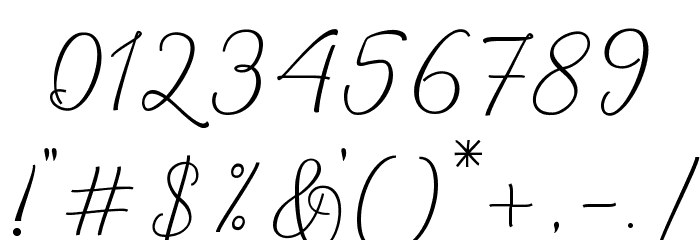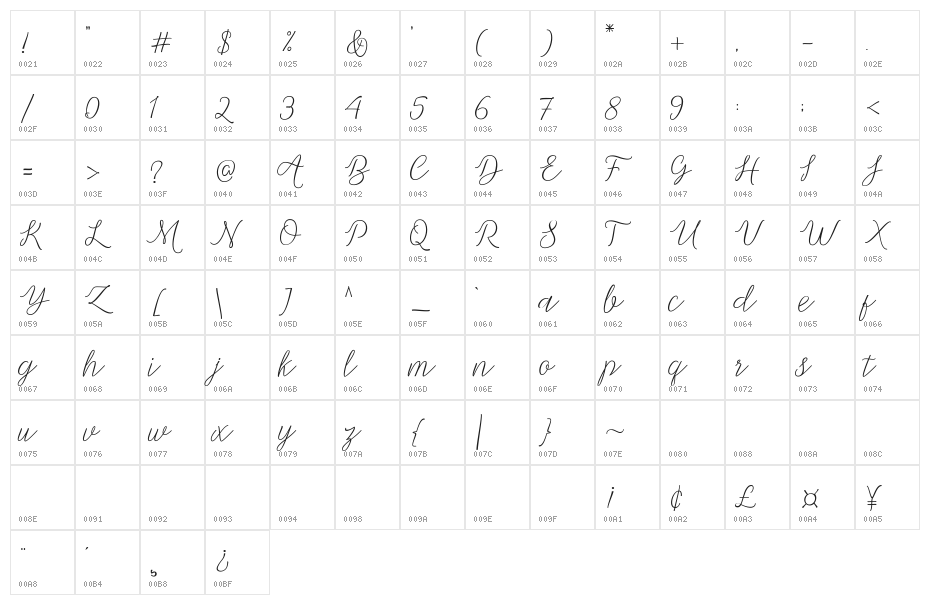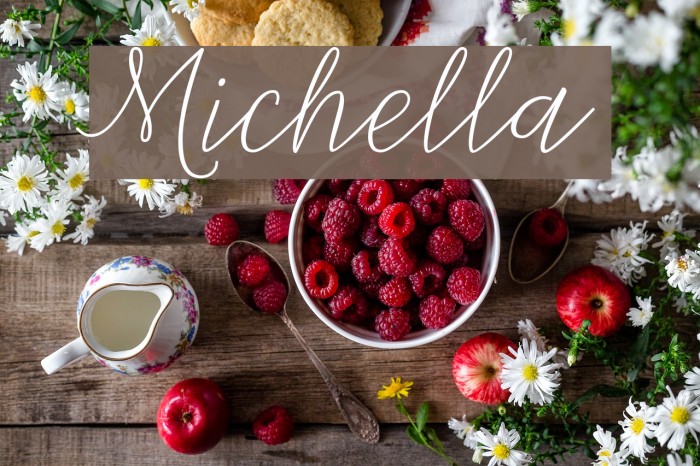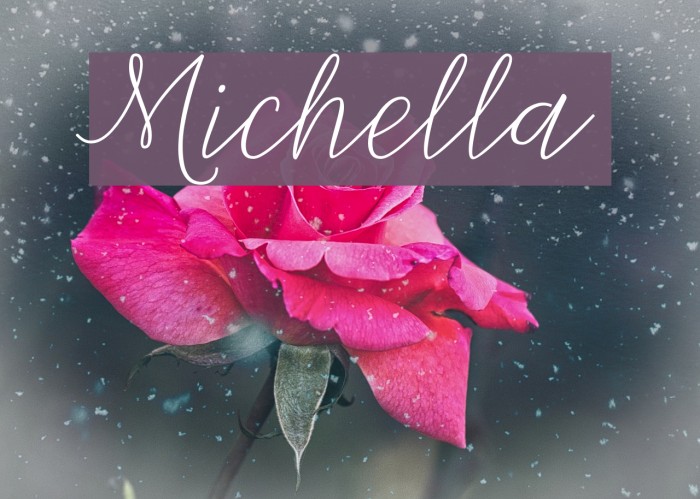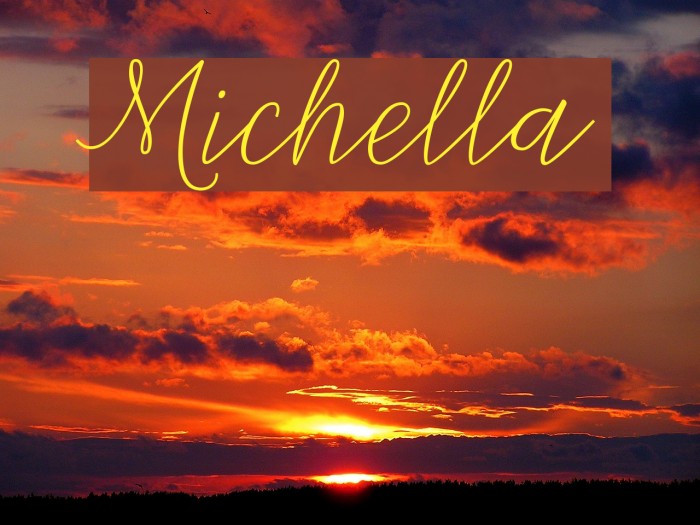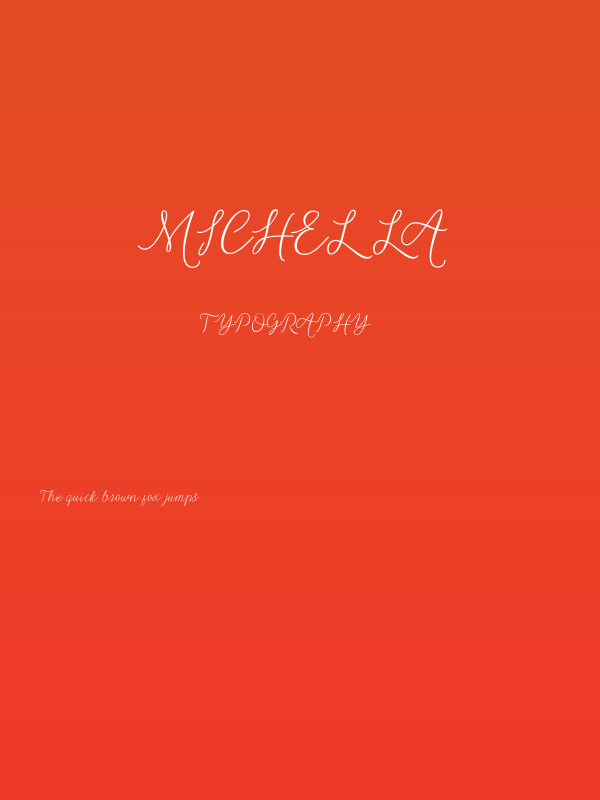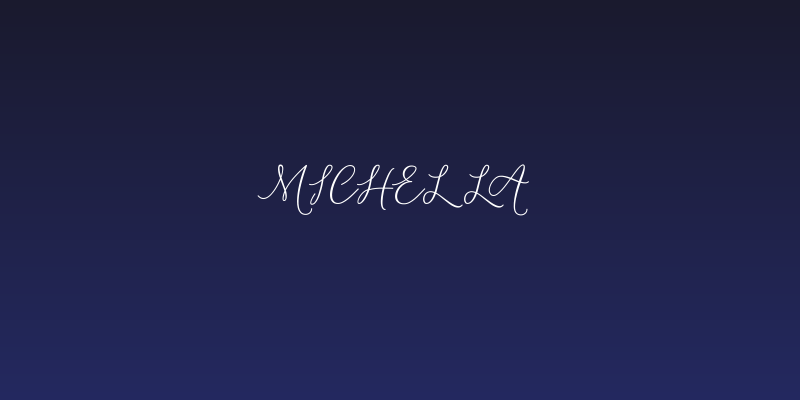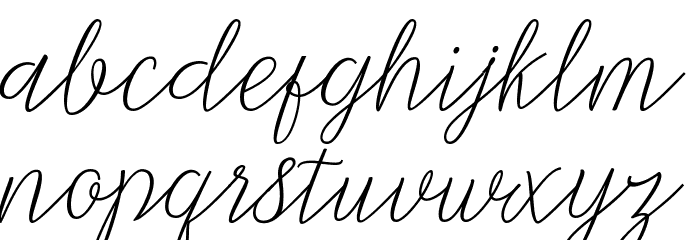
Michella Font
Michella Description
This elegant script font features fluid, cursive strokes that emulate the look of traditional handwriting. The uppercase letters are characterized by their graceful loops and swirls, while the lowercase letters maintain a consistent flow with gentle curves. The numerals and special characters are designed to complement the overall style, maintaining the same fluidity and elegance. This font is perfect for adding a personal touch to any project, offering a sophisticated and stylish appearance.
| Proposed Projects | Ideal for wedding invitations, greeting cards, personal branding, and elegant packaging design. |